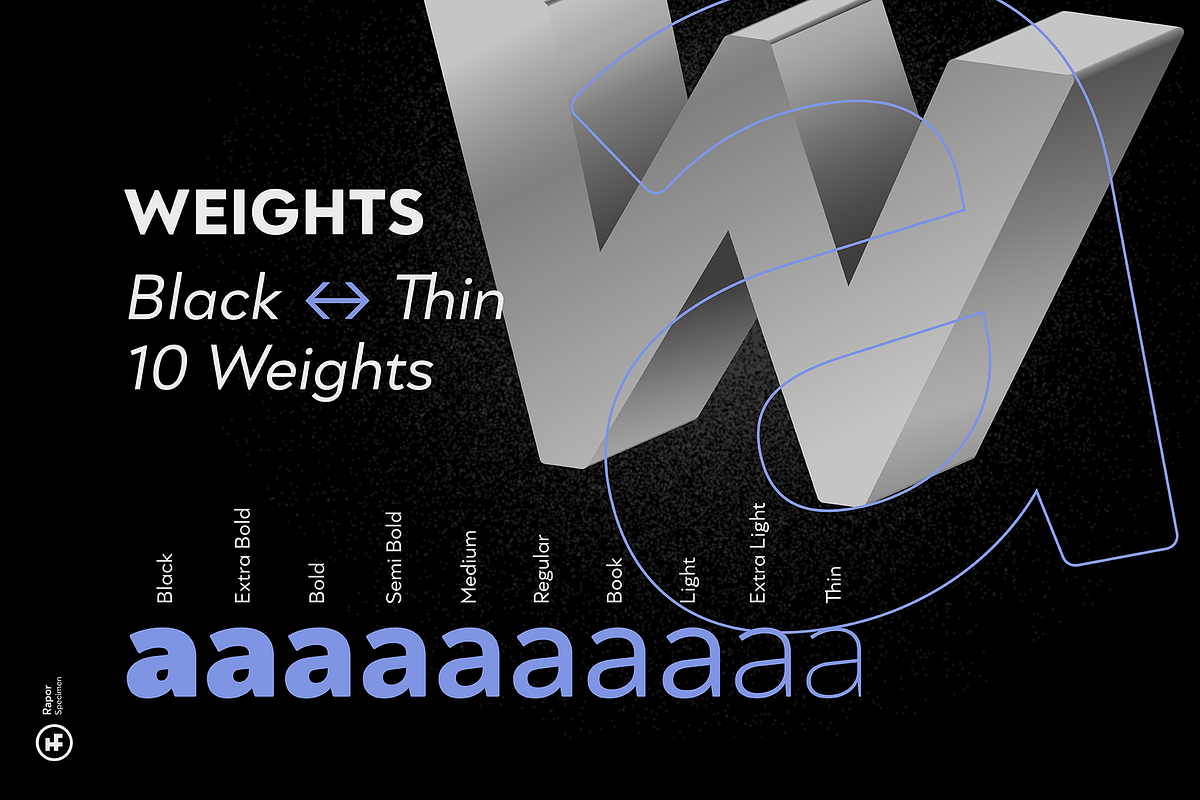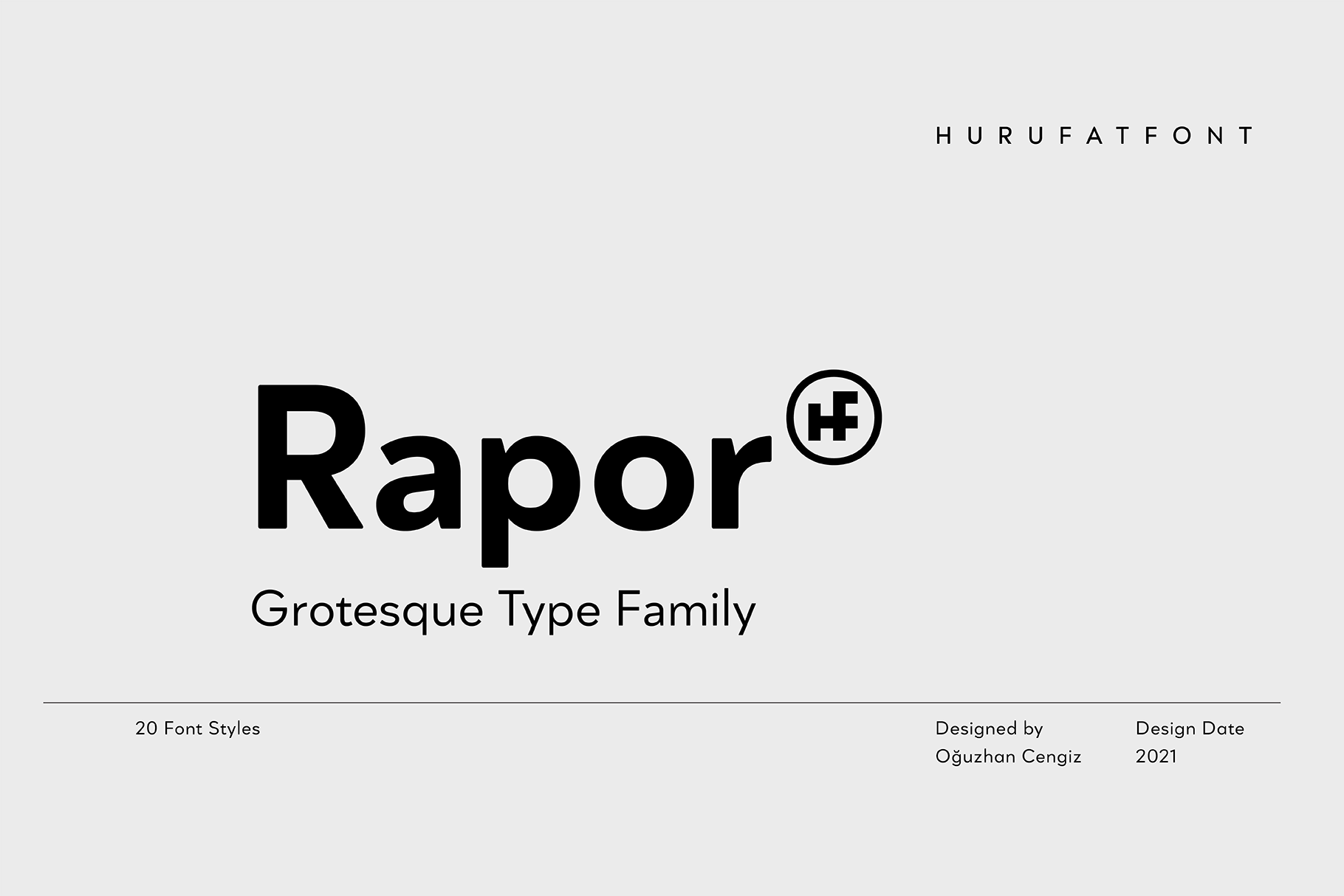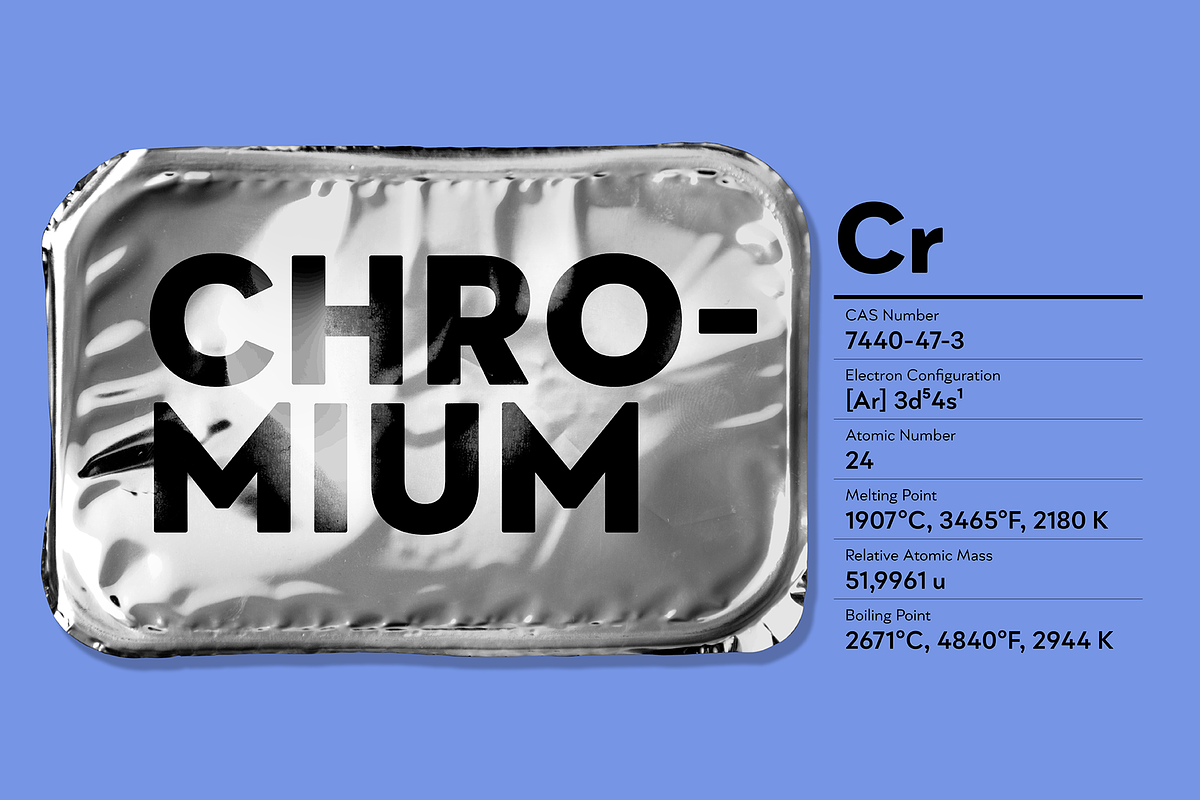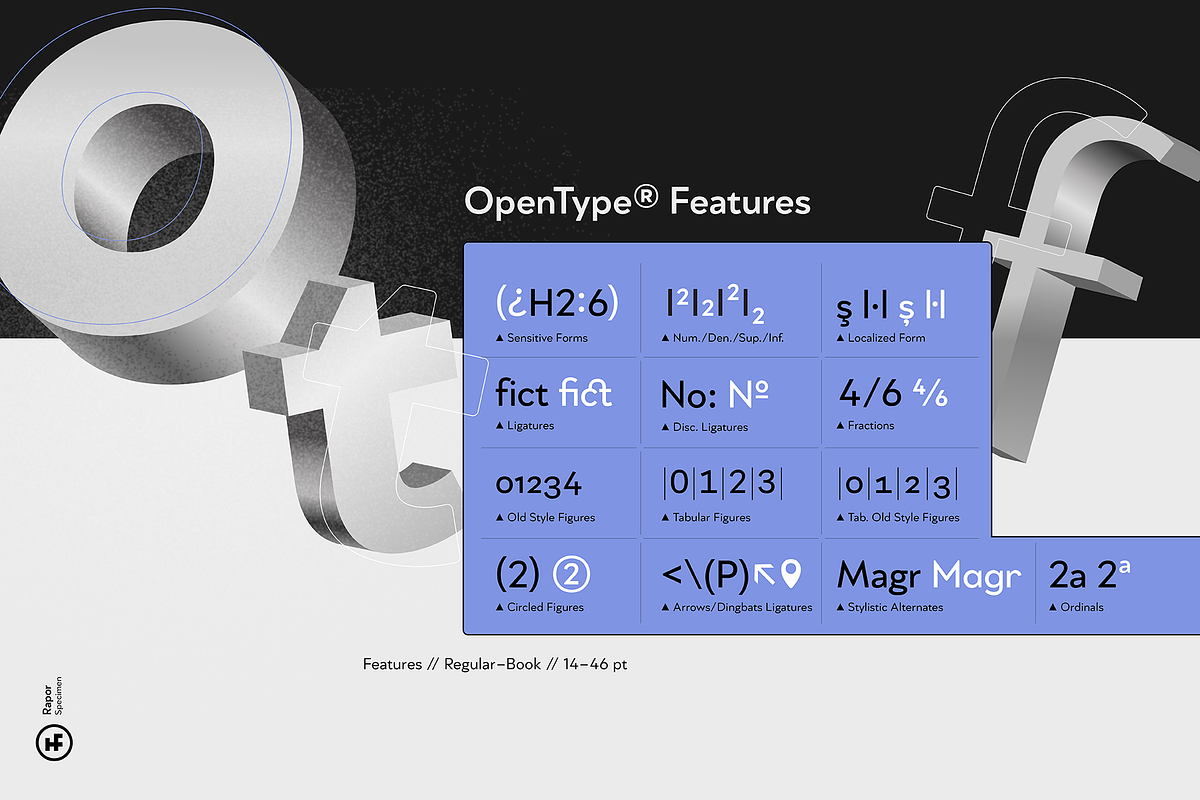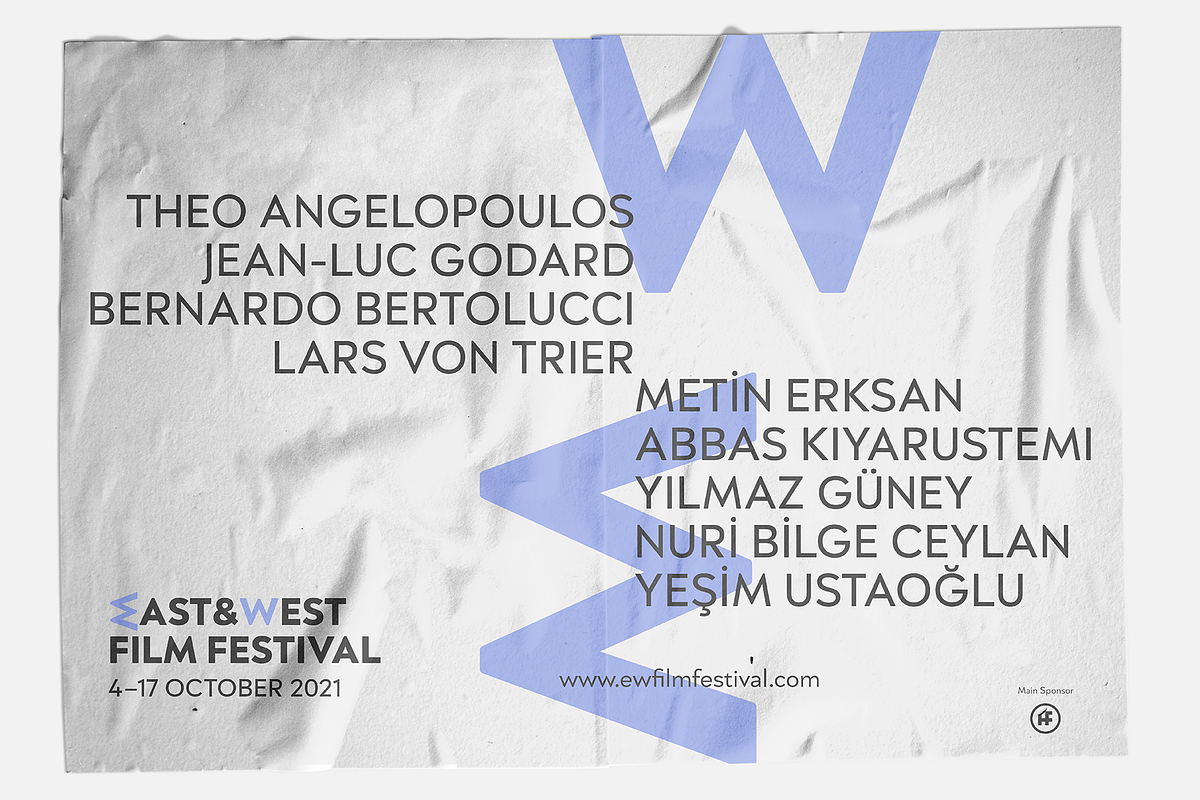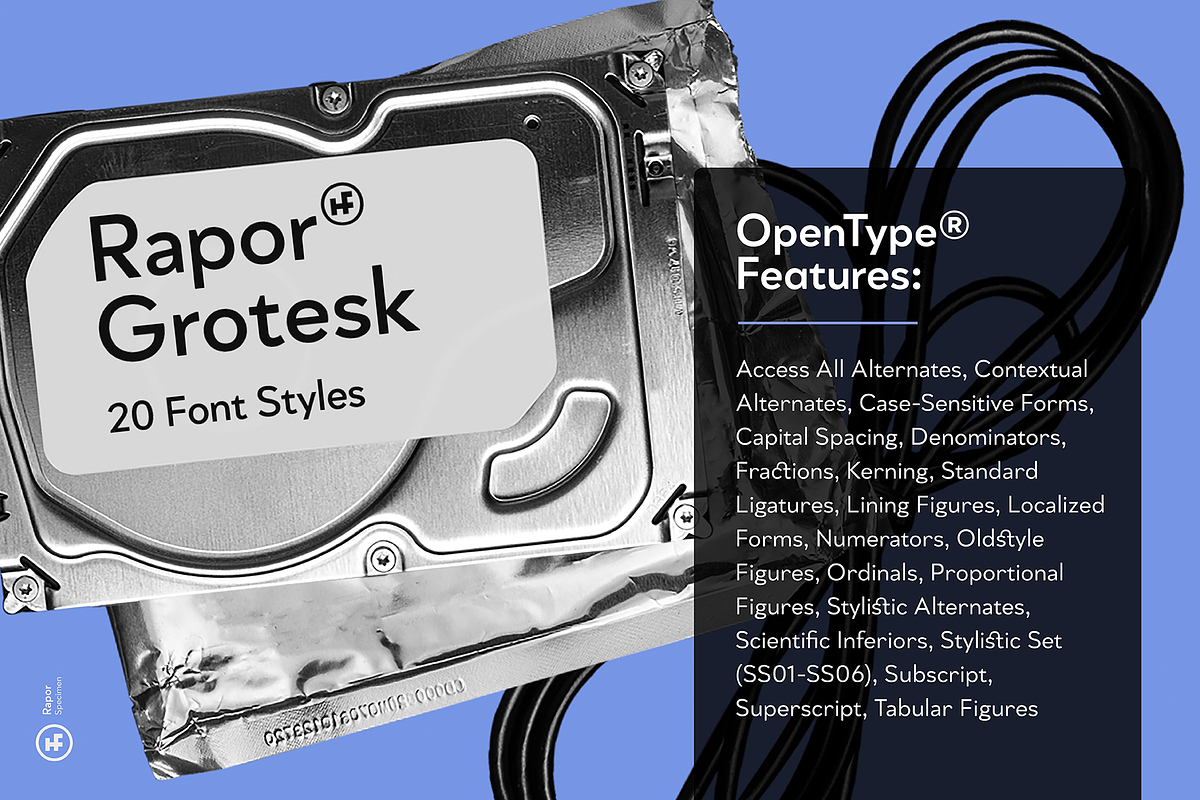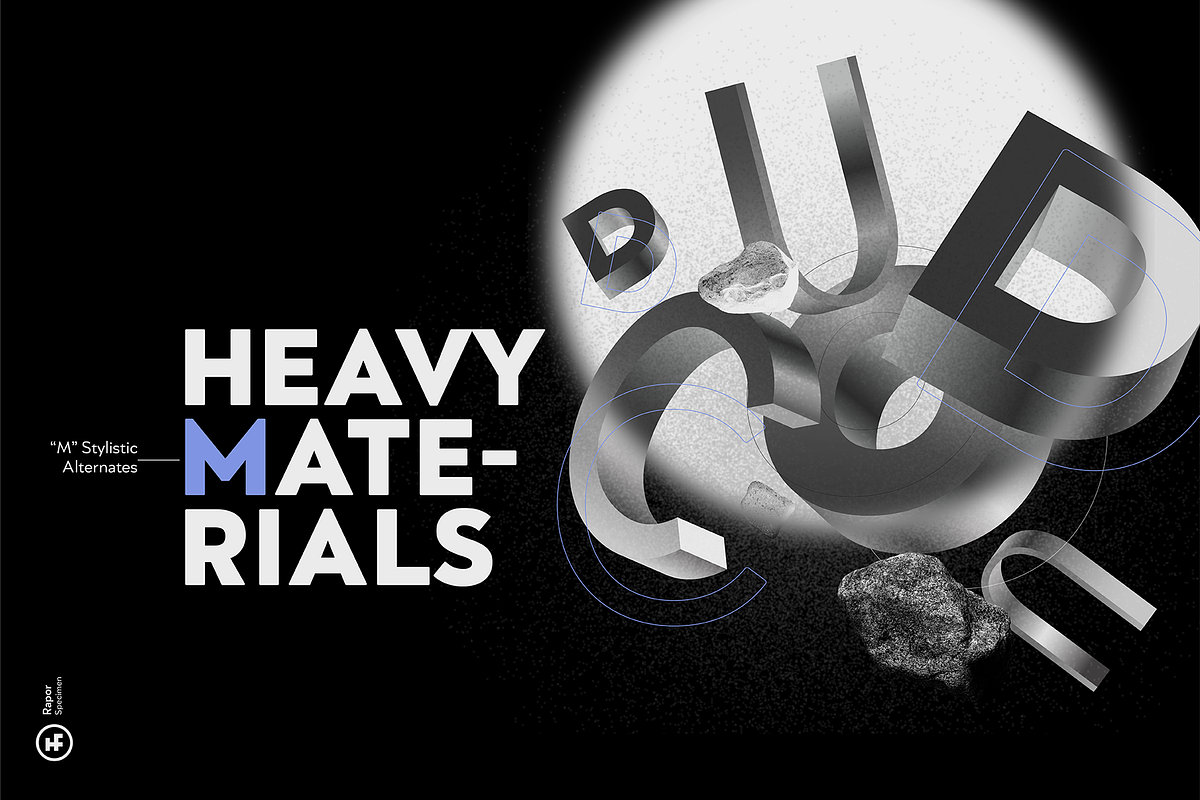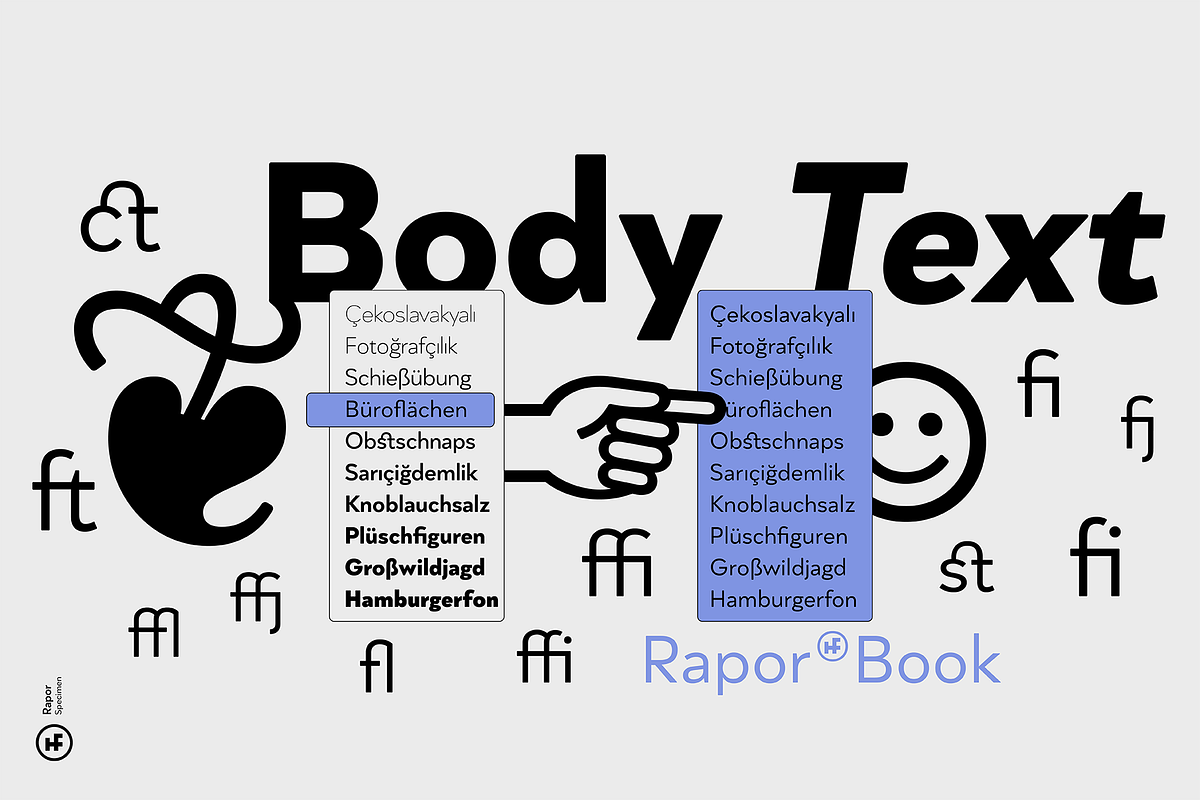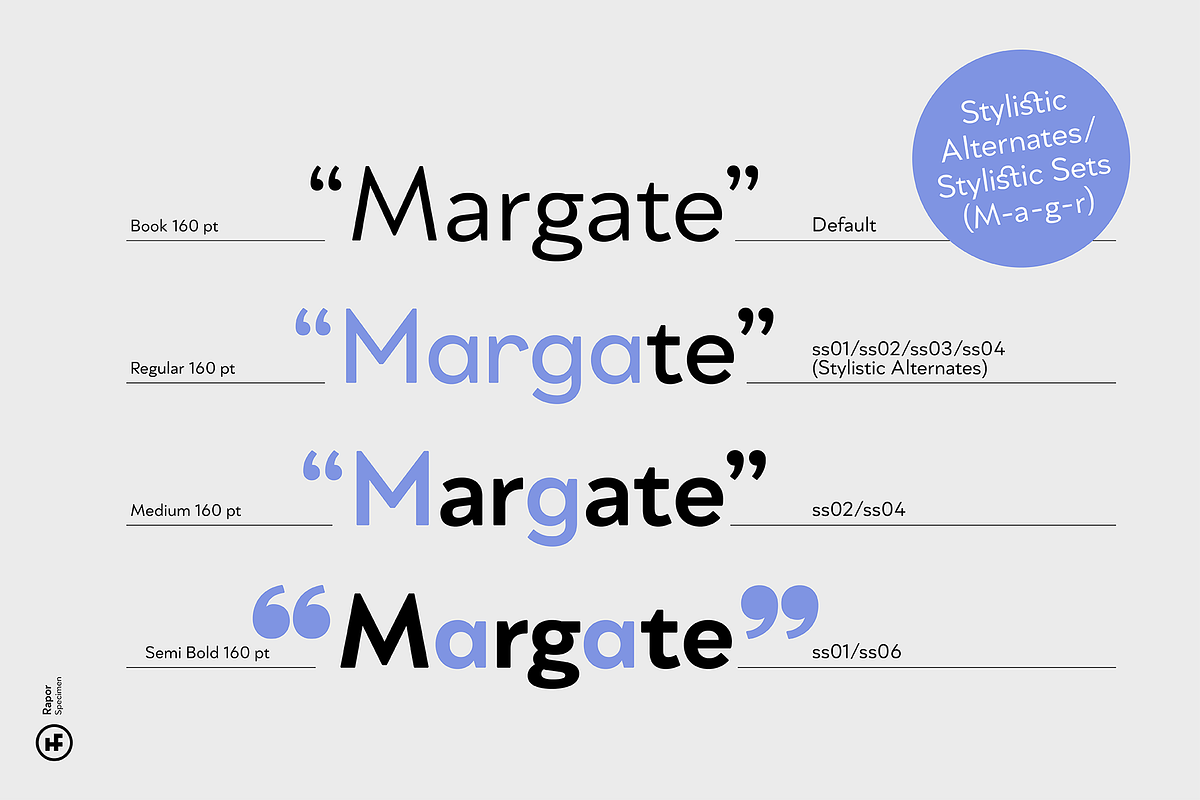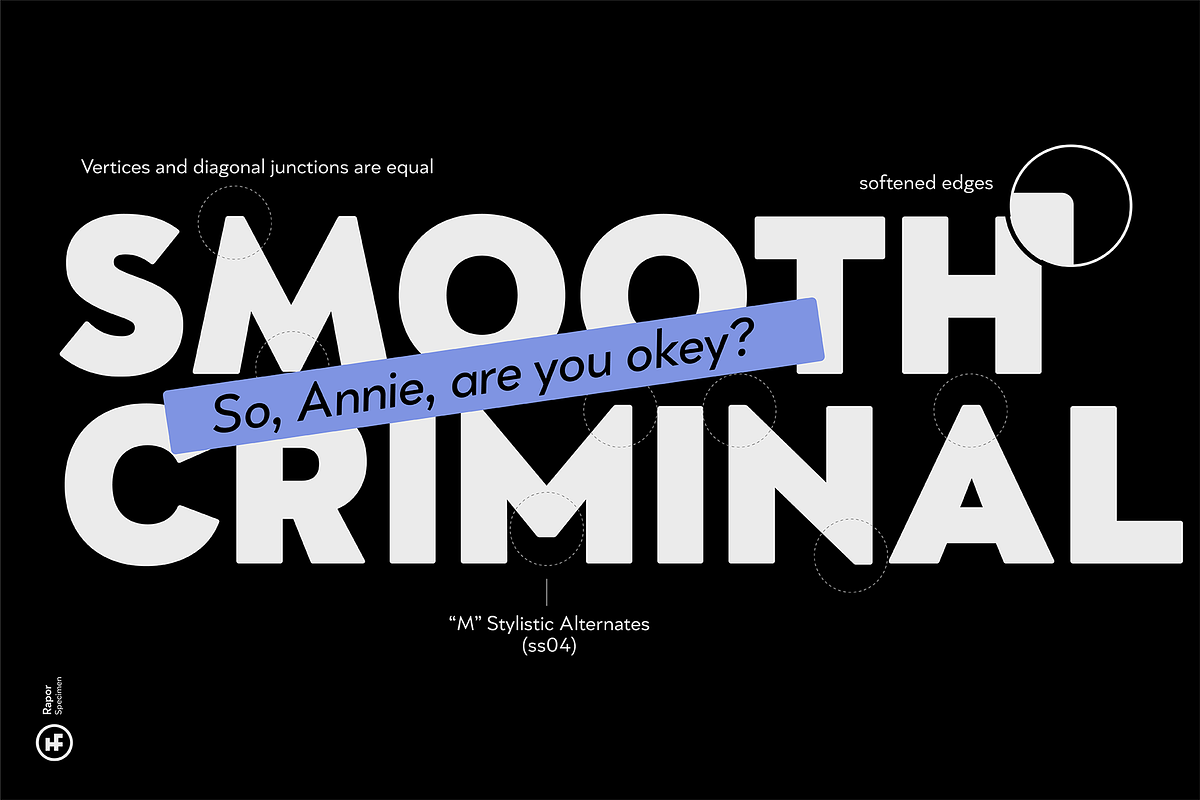
Rapor Grotesque - 20 Fonts
Rapor is a powerful and elegant combination, built from a combination of sans serifs with strong gemometric foundations such as Futura, and grotesque fonts based on the equal-width system. Its slightly softened evenly converging diagonal corners add distinctiveness to it.
It has 10 weights ranging from Thin to Black. It consists of twenty styles with matching italics. Rapor is equipped for professional typography with rich opentype features.
OPENTYPE FEATURES: aalt, locl (Romanian, Moldovian, Dutch, Catalan, Turkish, Azeri, Crimen Tatar, Kazakh), ordn, locl, case, frac, sinf, subs, sups, numr, dnom, tnum, onum, lnum, pnum, ss01 (Alternative a), ss02 (Alternative g), ss03 (Alternative r), ss04 (Alternative M), ss05 (Circled Figures), ss06 (Apostrophe), ss07 (Dingbats Ligature), dlig, liga, salt, cpsp, calt.